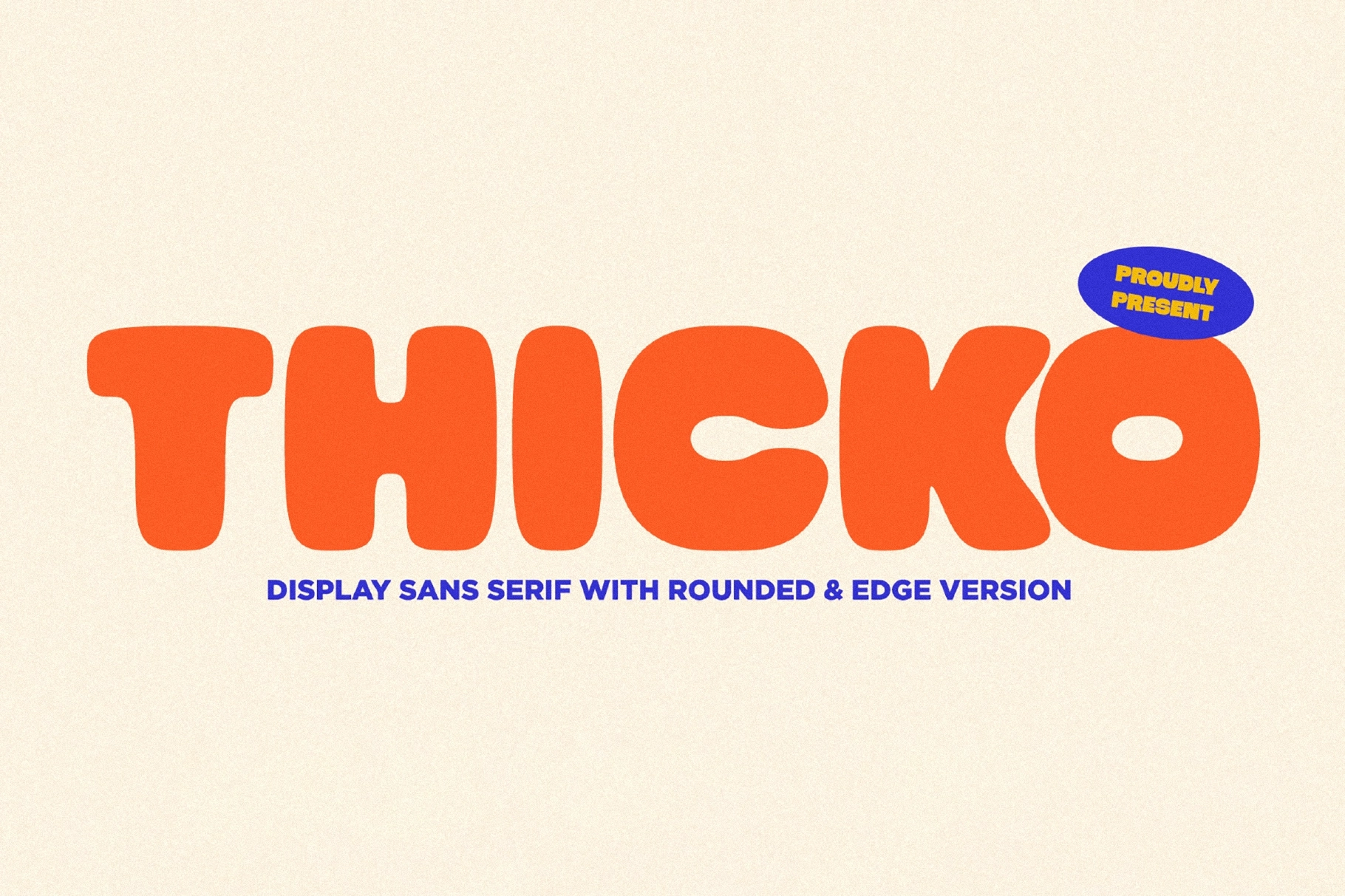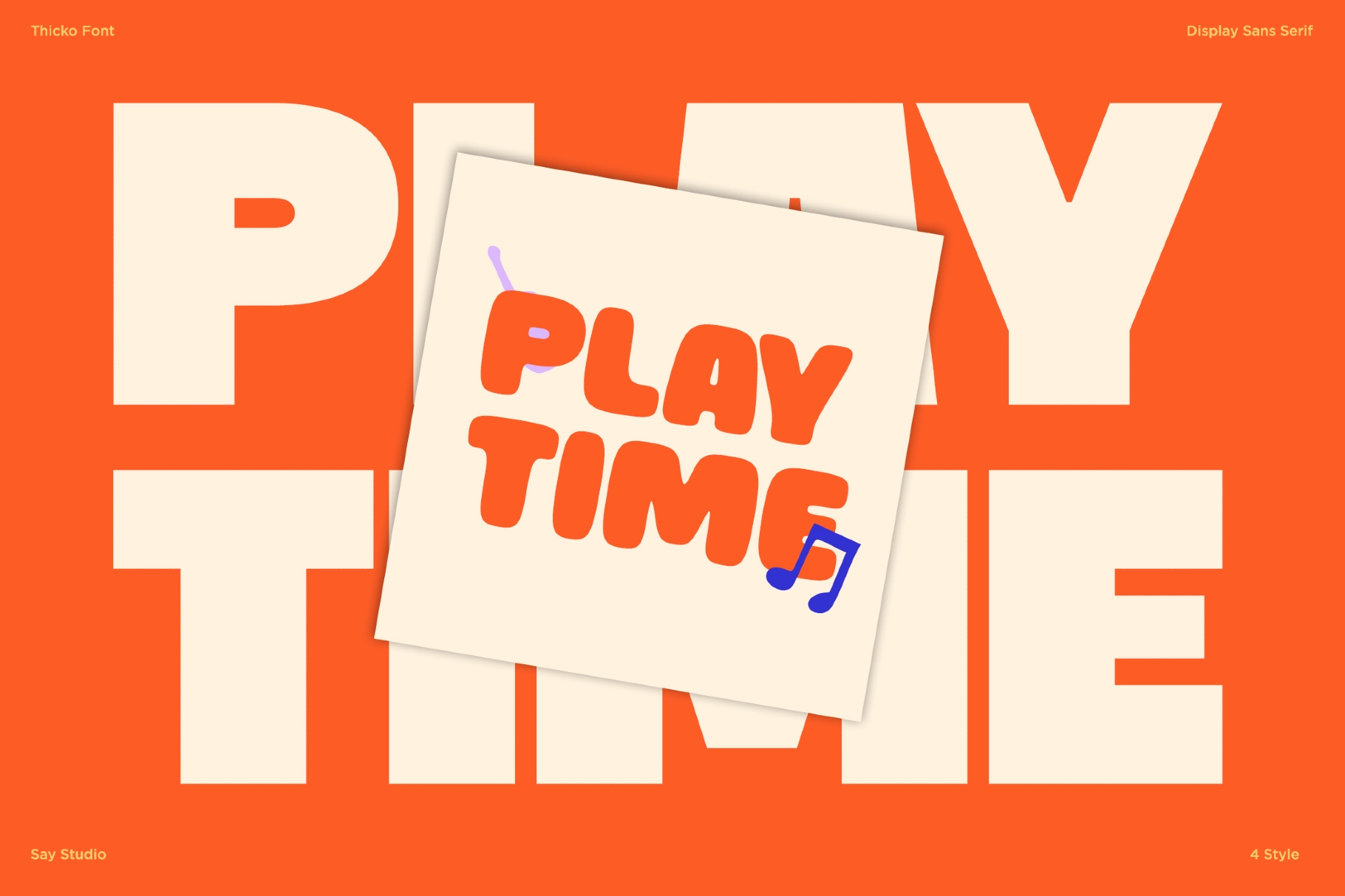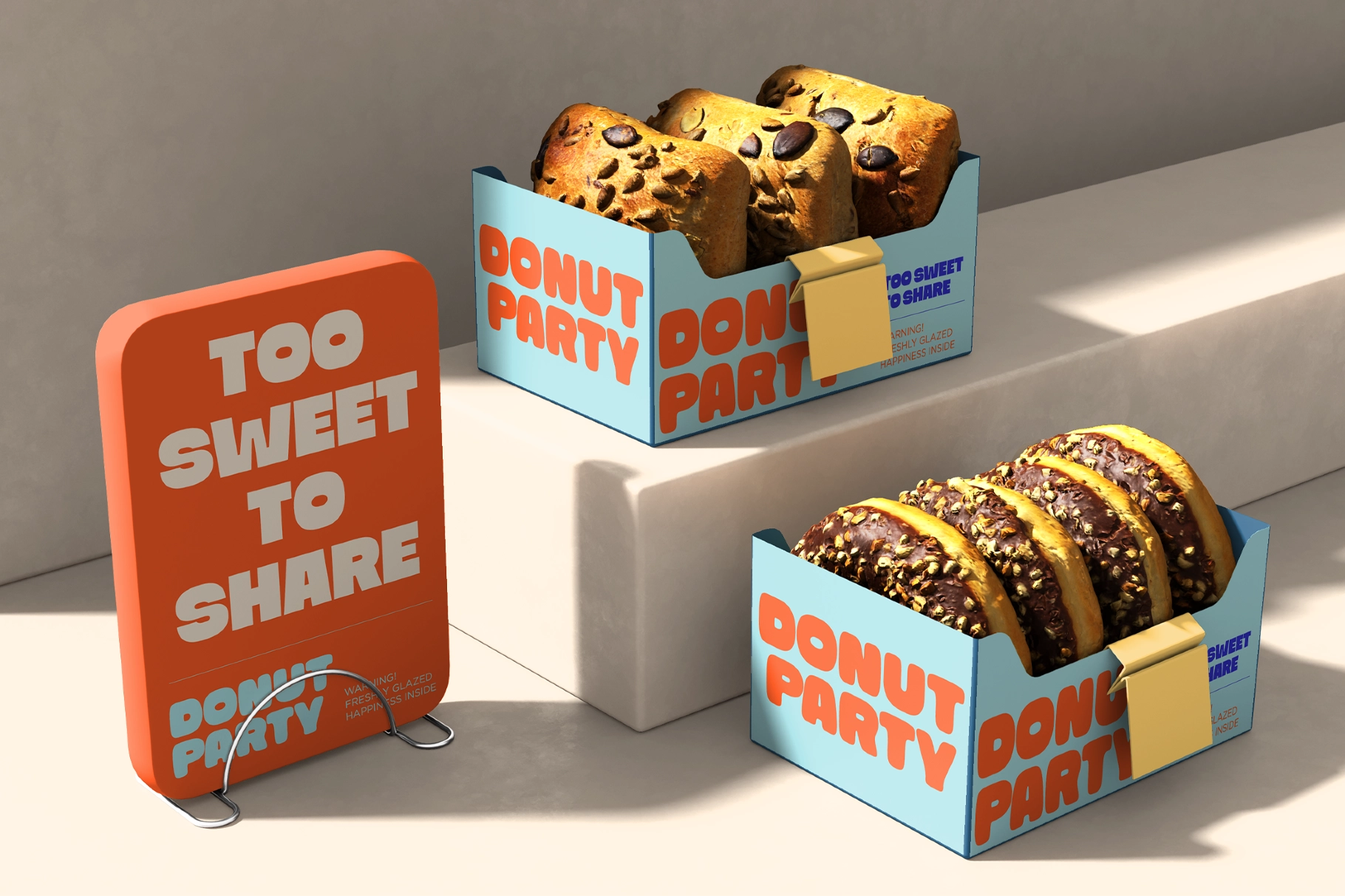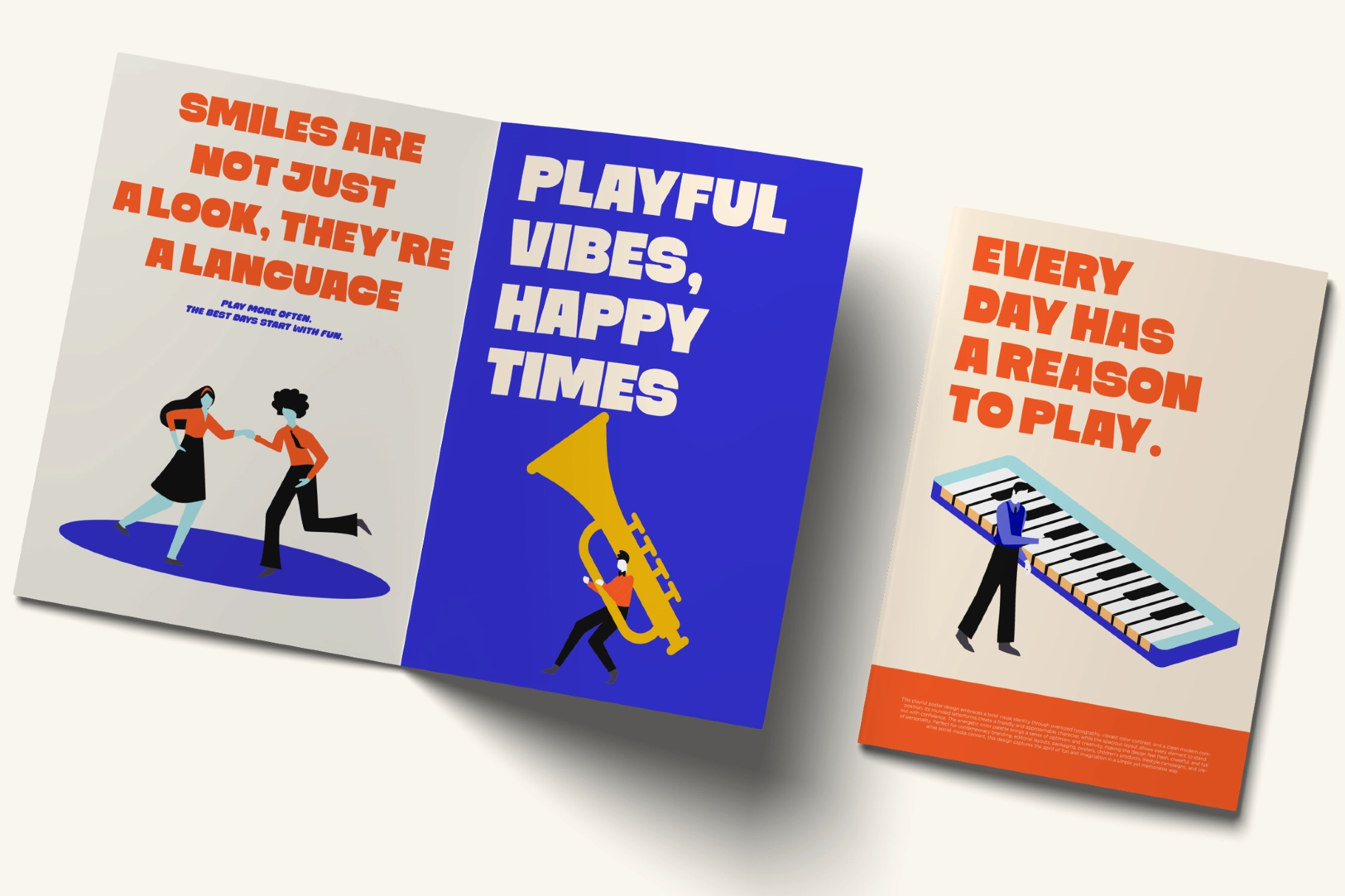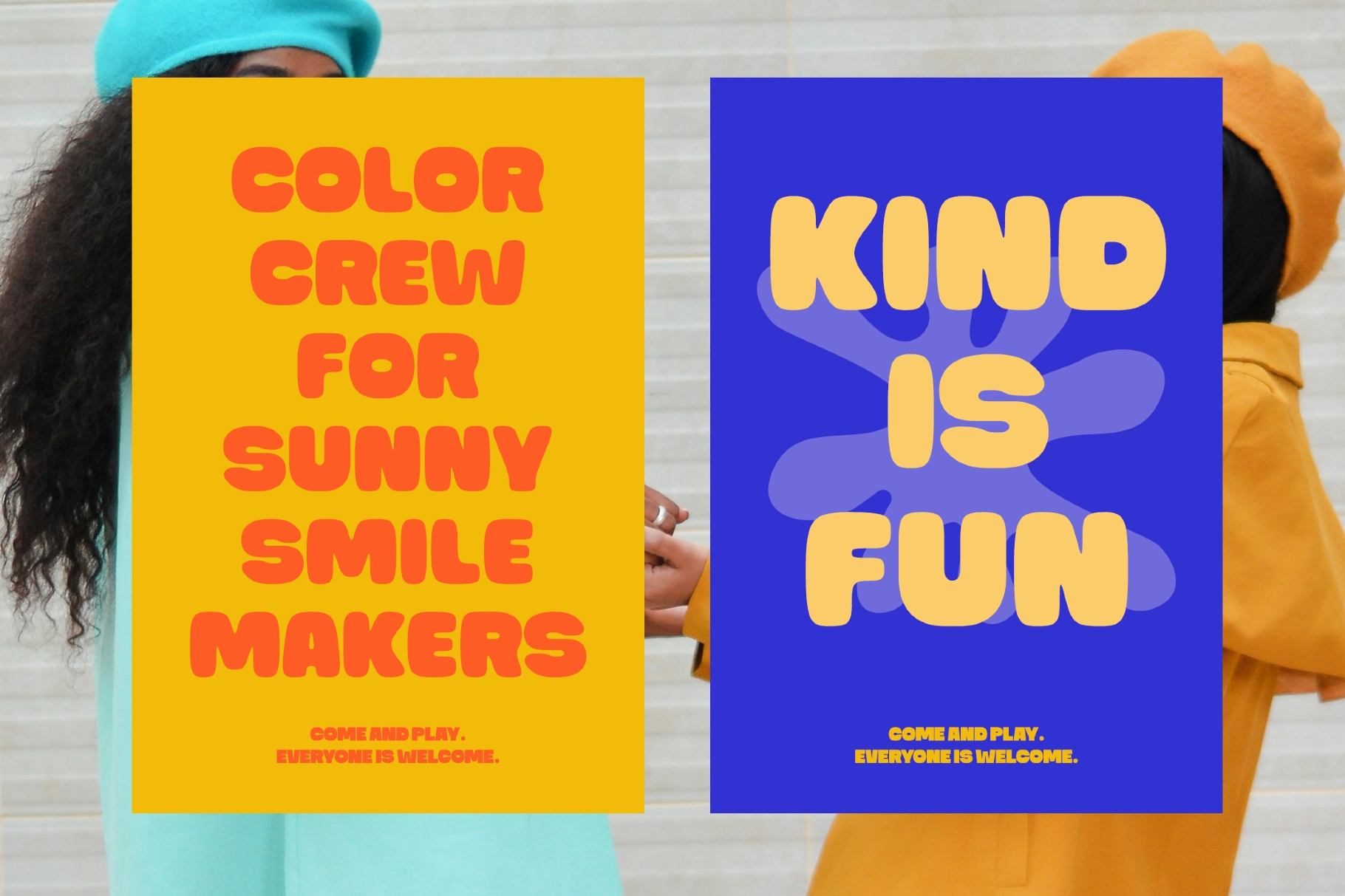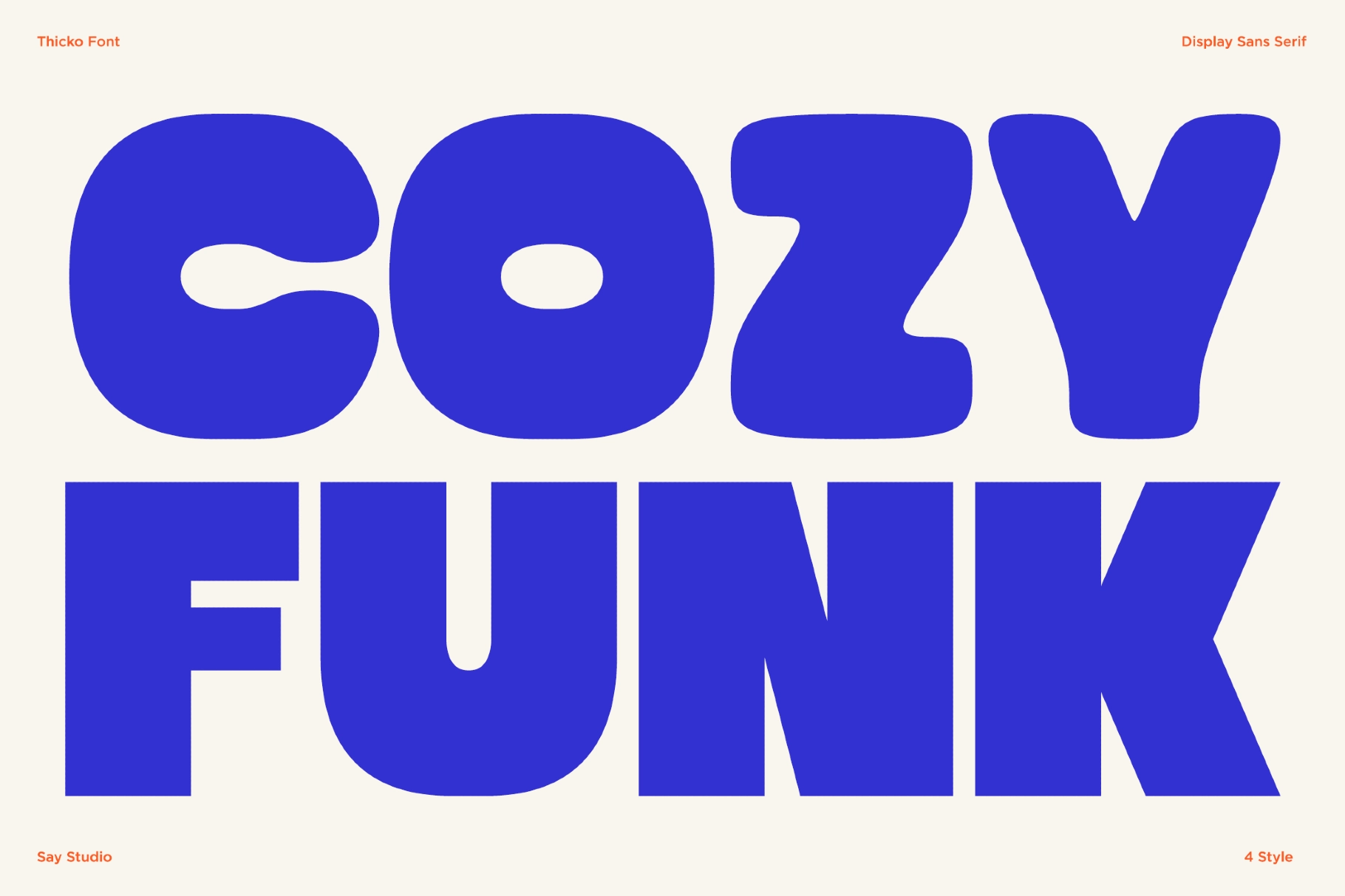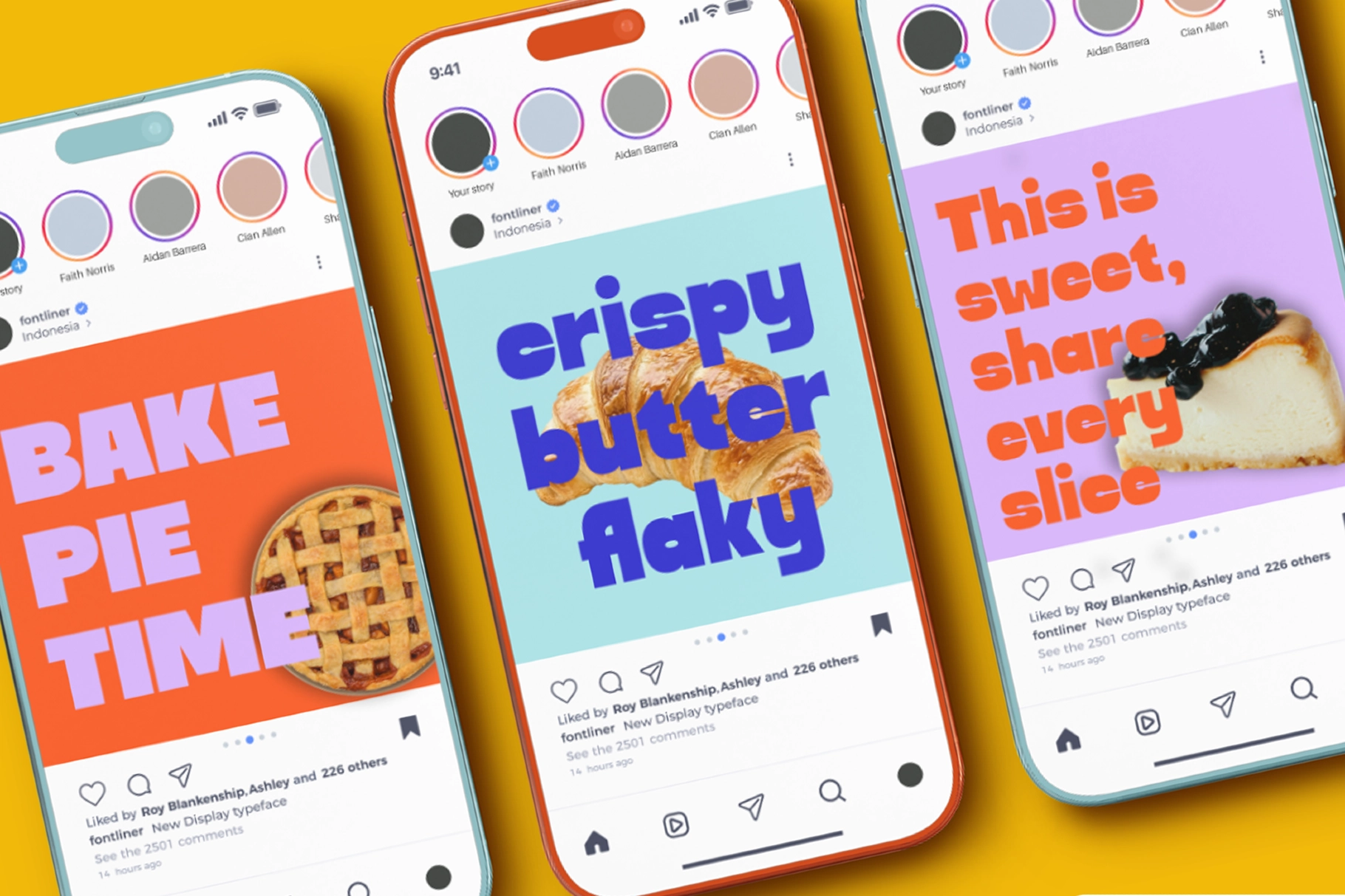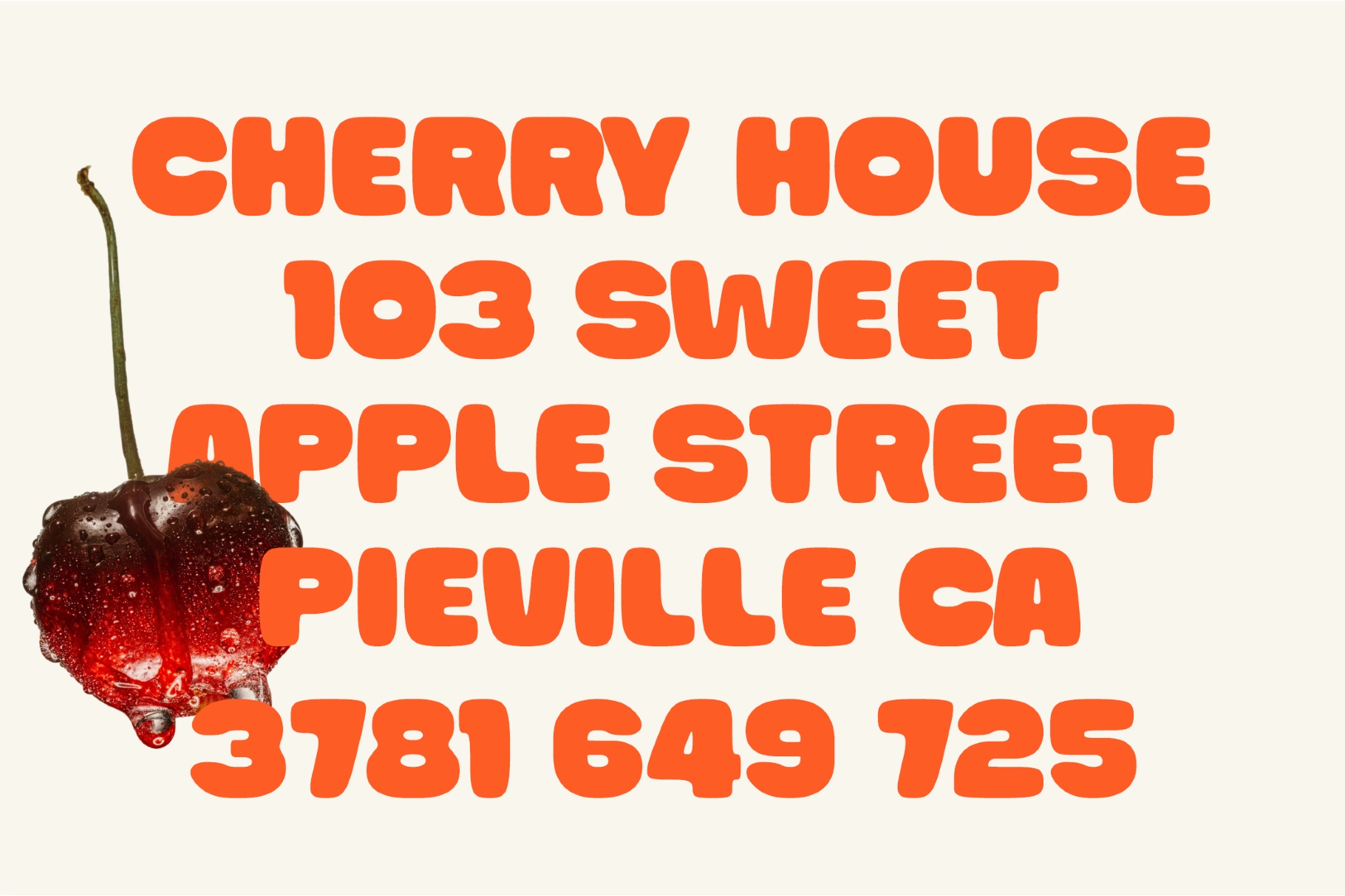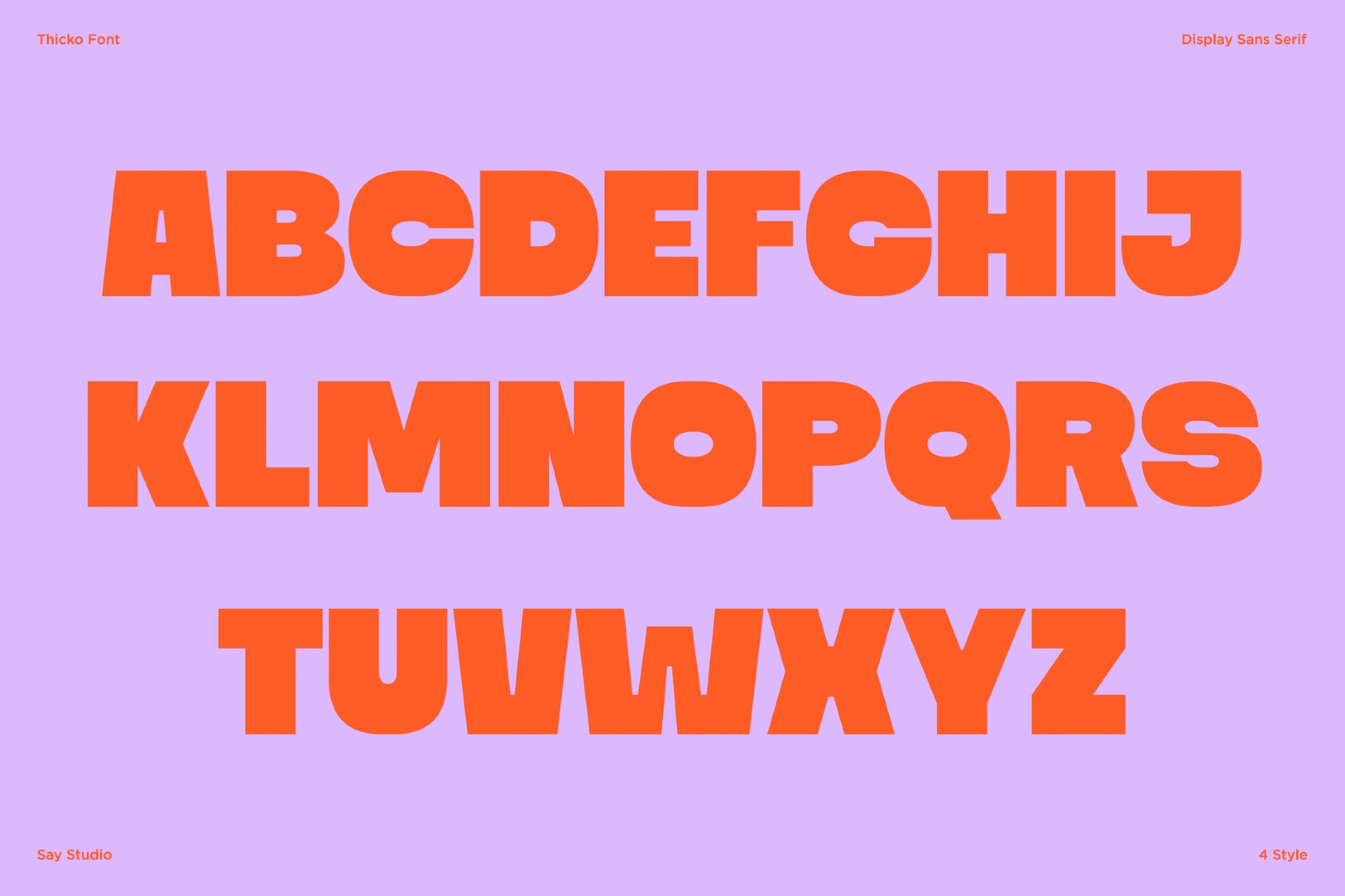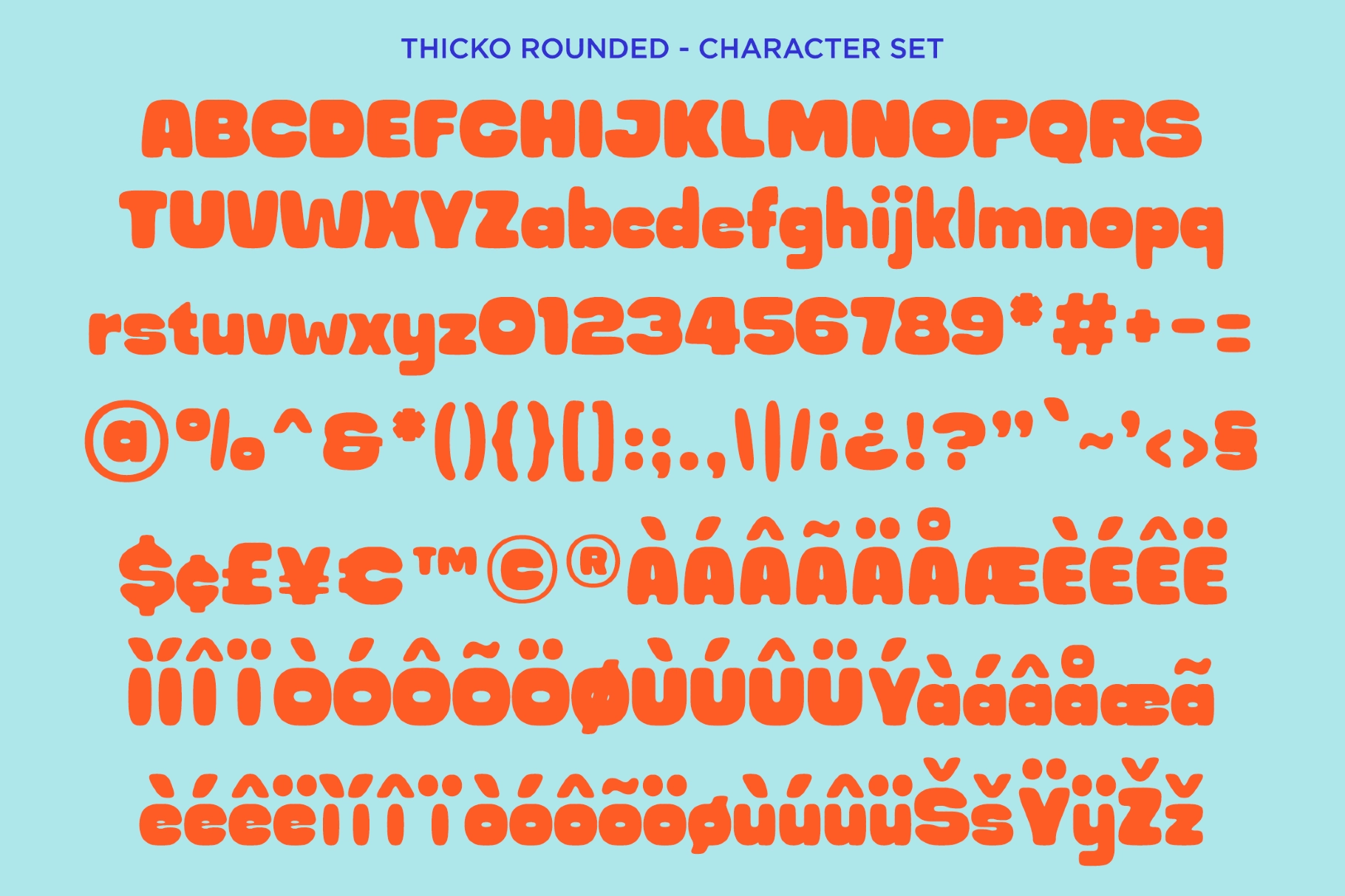
Thicko - Bold Chunky Font
Thicko is a bold chunky bubble font built from thick geometric strokes, rounded corners, and tight, playful counters. The proportions land close to 70s bubble-lettering and cereal-box branding, with a heavy stroke weight that holds up even at logo scale. The family splits into Rounded and Edge cuts, each paired with an upright and italic companion, so the same bounce shifts between a softer bubble shape and a sharper display edge.
Thicko works best in short, punchy settings where the letterforms can carry the whole layout. Use it for snack packaging, candy branding, toy labels, kids' logos, event posters, social media graphics, YouTube thumbnails, merch prints, café signage, app banners, editorial headlines, and more.